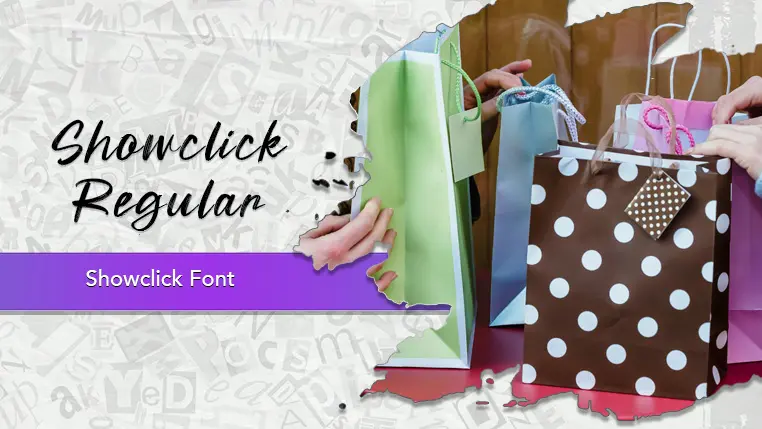
The Showclick font family may be ideal for you if you enjoy working on an artistic design project. The lively, expressive look of this typeface, which was created by Khurasan, makes it ideal for Headlines and titles. Showclick can be a great choice for brands that want to convey a creative, modern, or fun personality. This font is well-suited for a variety of projects, including social media posts, event graphics, and packaging designs. Its handwritten style adds a personal and friendly touch to invitations for parties, weddings, or other events. and other light-hearted visual projects.
Regular are the one primary font styles of the Showclick font family. You may build dynamic, visually appealing text layouts with the distinct flair that each style offers. With crisp, readable lines and a relaxed tone.